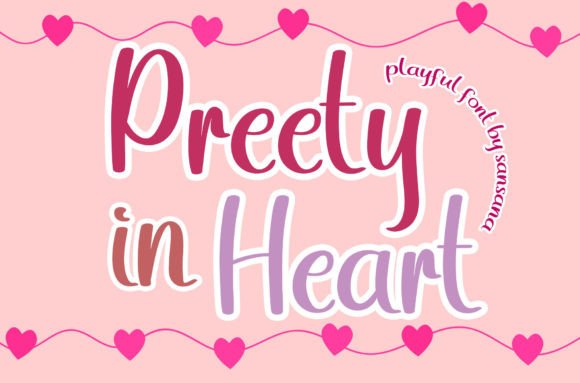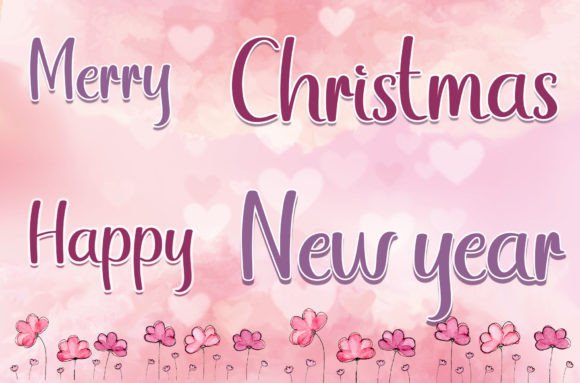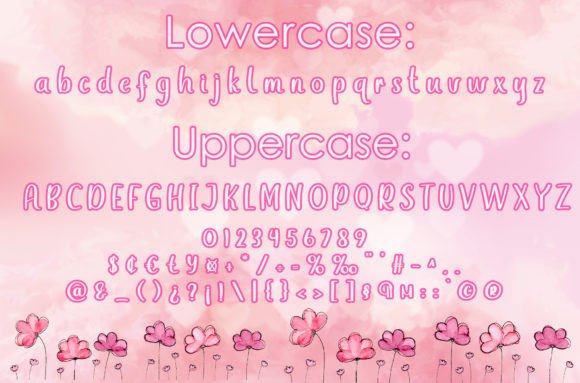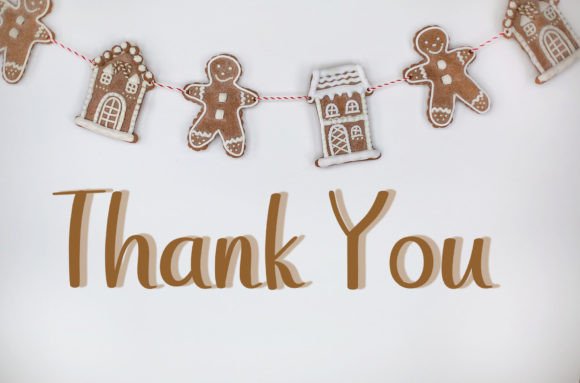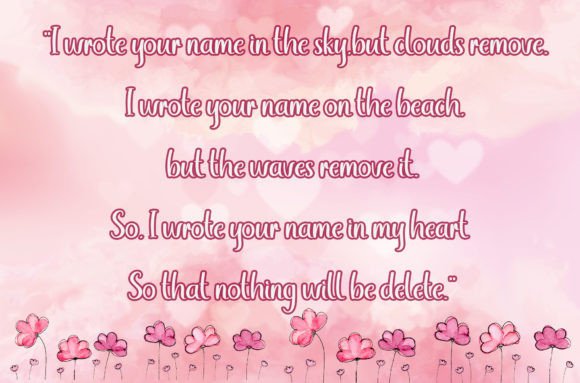
Preety in Heart Font
About Preety in Heart Font
Preety in Heart is a cute and simple-lettered handwritten font perfect for all the chalkboard quotes and teaching materials you wish to create! Its authentic look will add a personal and realistic feel to your designs.